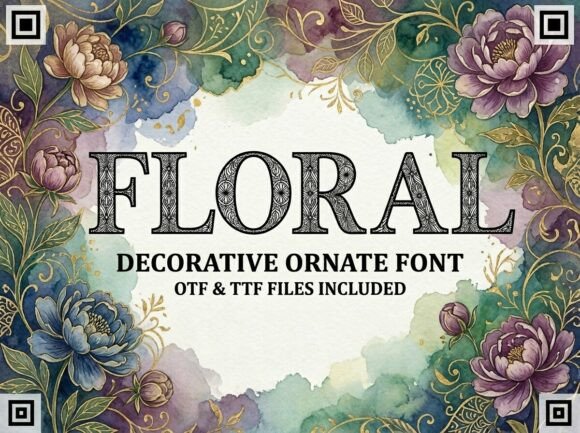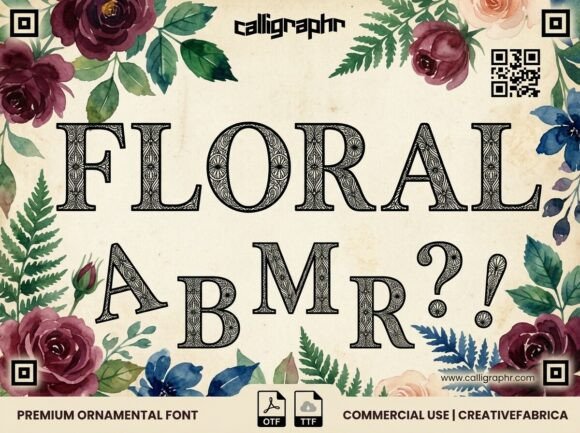
The Ultimate Guide to Floral Font: Elevate Your Designs with Elegance
Have you ever been in the middle of a design project, and suddenly, you’re stuck on finding the perfect font? I recall a recent experience where I was working on a client’s branding project, and I needed a font that would make their logo stand out. The client wanted something elegant, sophisticated, and eye-catching. That’s when I discovered the stunning Floral Font. In this article, we’ll dive into the world of Floral Font, exploring its features, uses, and everything in between.
A Personal Encounter with Floral Font
As a designer, I’ve worked on numerous projects, but this particular one required something special. The client’s brand was all about luxury and refinement, and I needed a font that would reflect that. After hours of searching, I stumbled upon Floral Font, and it was love at first sight! The unique artistic elements and strong visual personality immediately caught my attention. I knew I had found the perfect fit.
An Honest Review of Floral Font
- ✨ Unique Artistic Elements: Floral Font boasts stunning decorative elements that will make your designs stand out from the crowd.
- ✅ Professional and Polished Finish: Despite its bold and artistic nature, Floral Font maintains a professional and refined finish, perfect for high-end designs.
- 🎨 Versatility: This font is perfect for bold headlines, artistic logos, and creative packaging.
⚠️ One thing to note is that Floral Font is an ALL-CAPS (Uppercase Only) display typeface. This means it doesn’t include lowercase letters, making it specifically designed for high-impact headlines, logos, and decorative initials.
The Backstory of Floral Font
Legend has it that the creator of Floral Font, a talented designer named Emma, was inspired by traditional floral patterns and Victorian-era typography. She aimed to craft a font that would bring a touch of elegance and whimsy to designs. With Floral Font, Emma succeeded in creating a truly unique and captivating typeface.
Q: Is Floral Font suitable for body text?
A: No, Floral Font is designed for display purposes only and is best used for headlines, logos, and decorative elements.